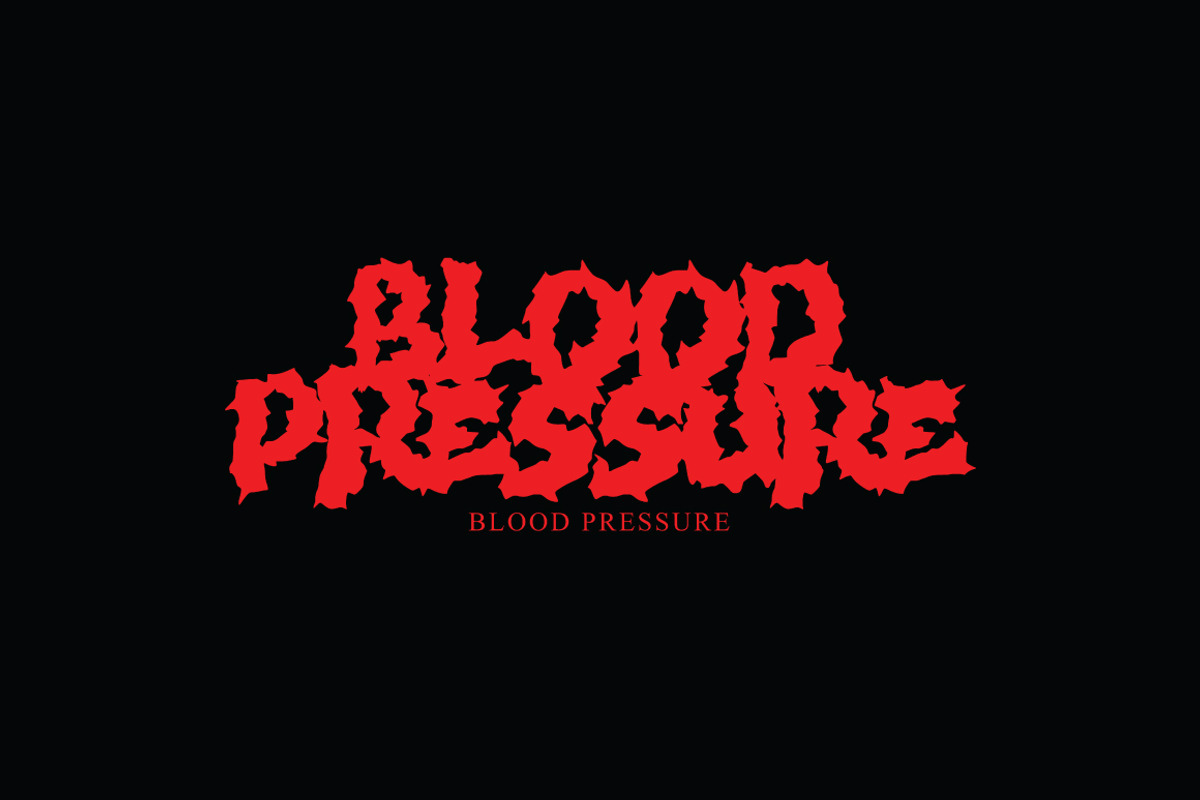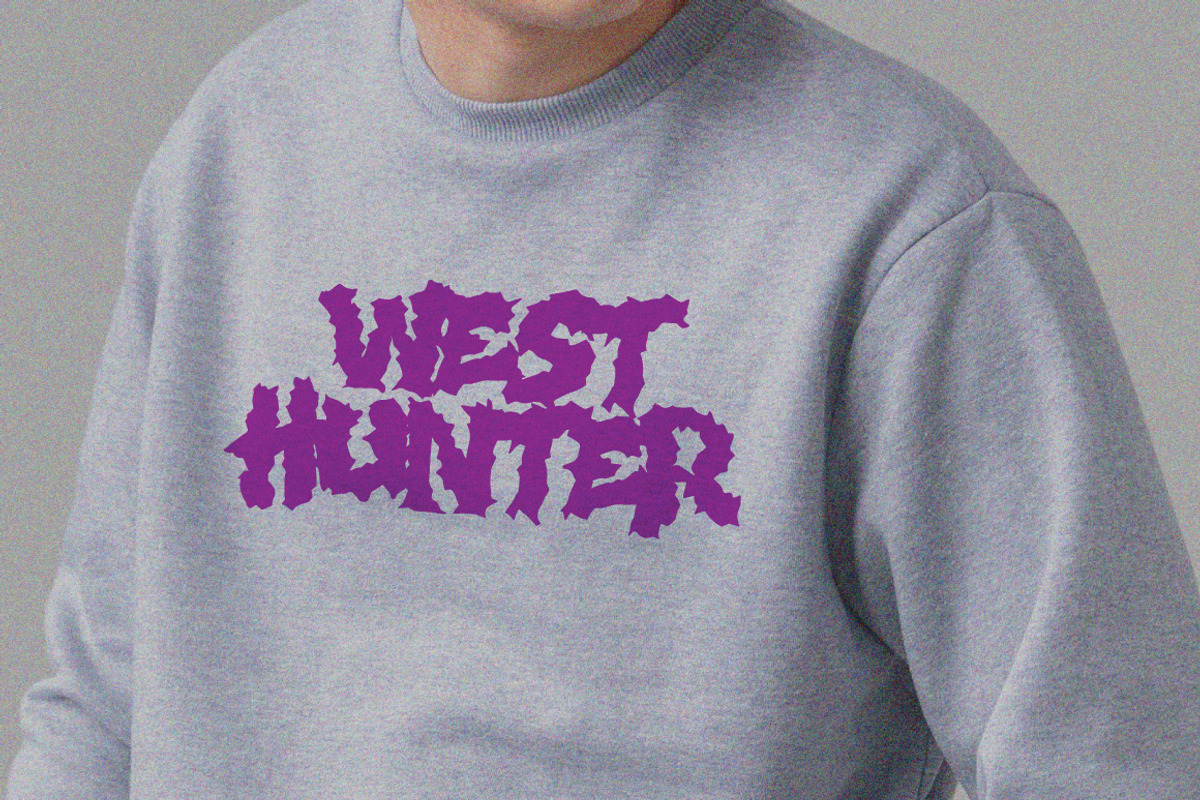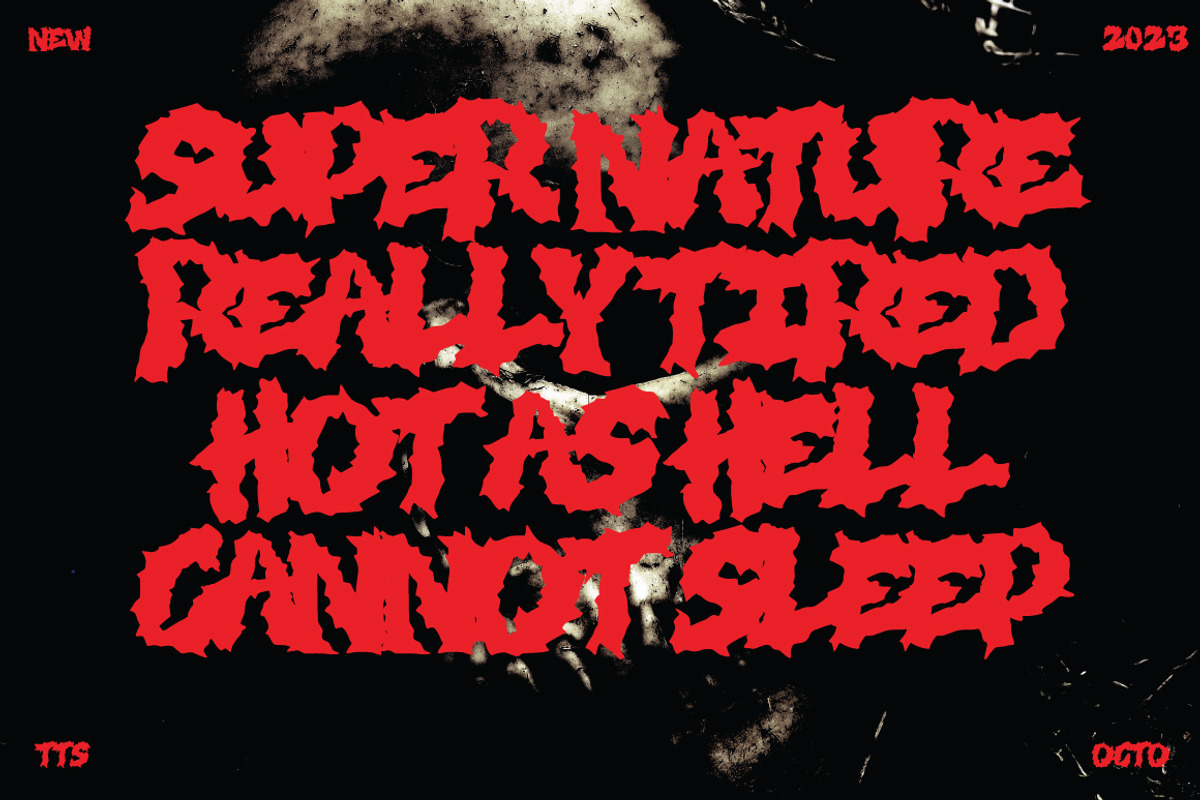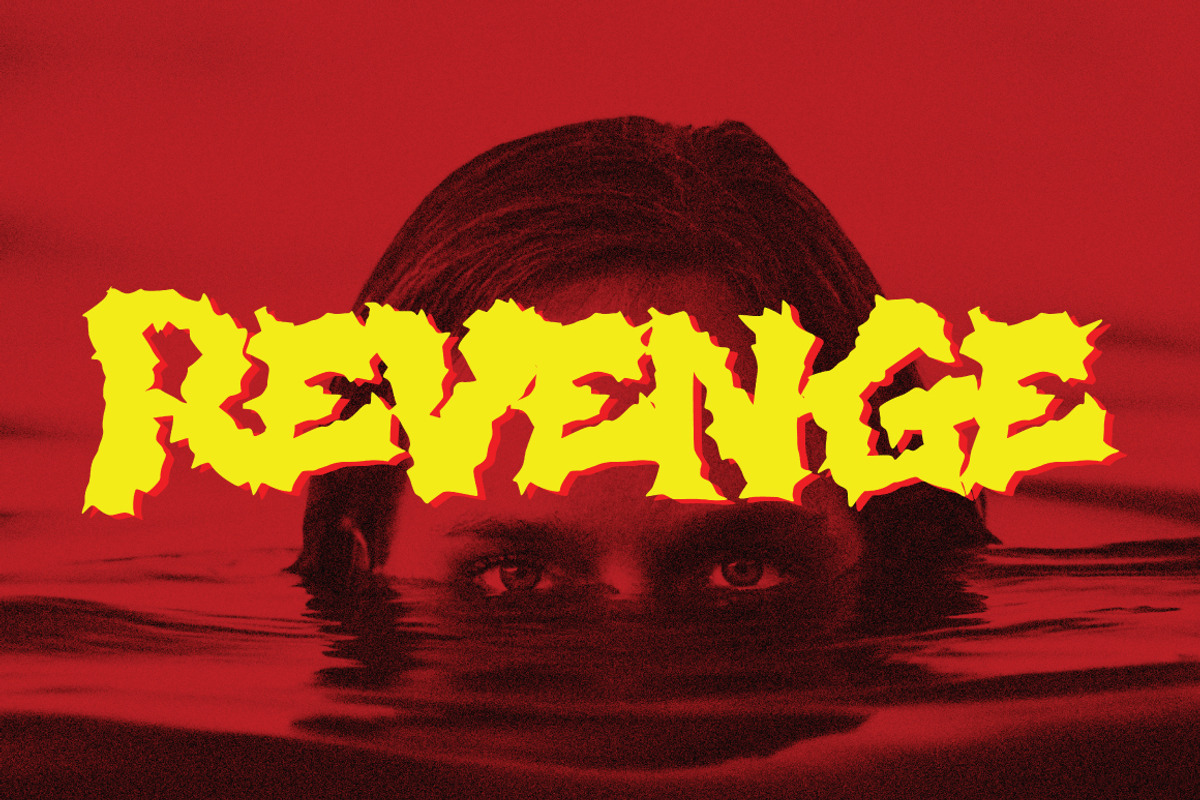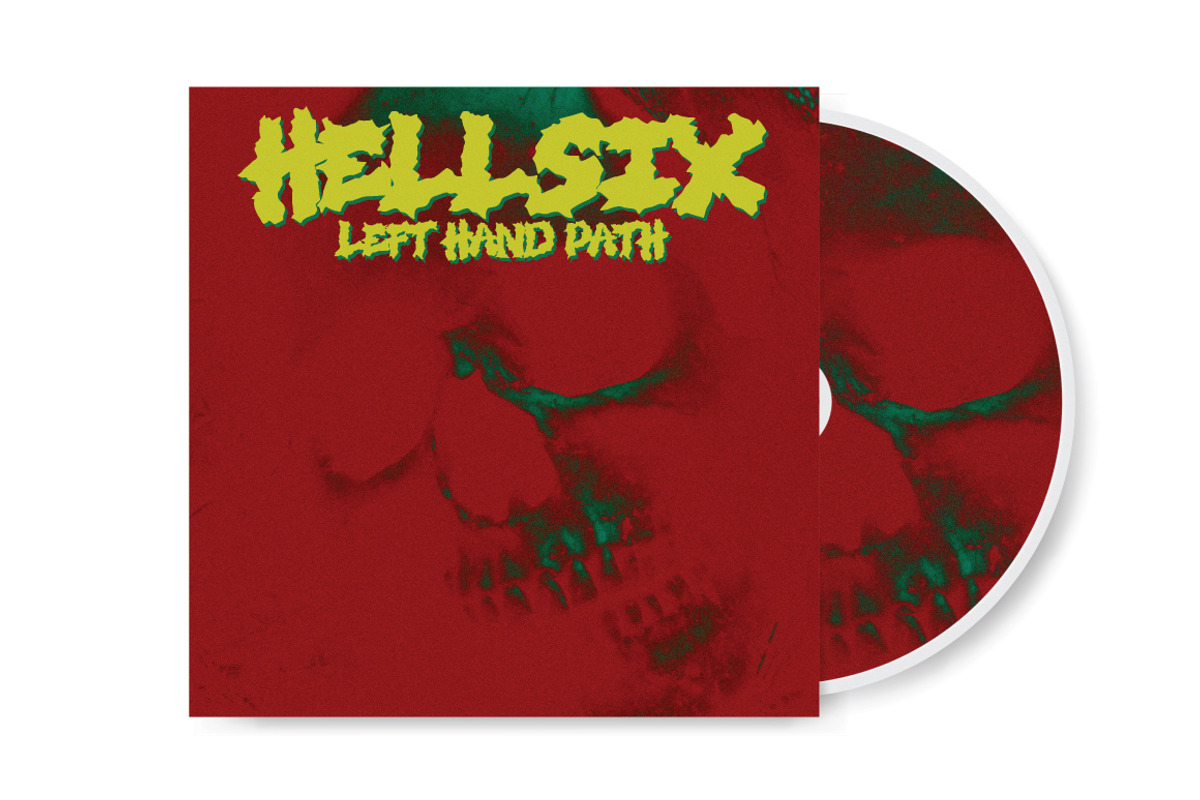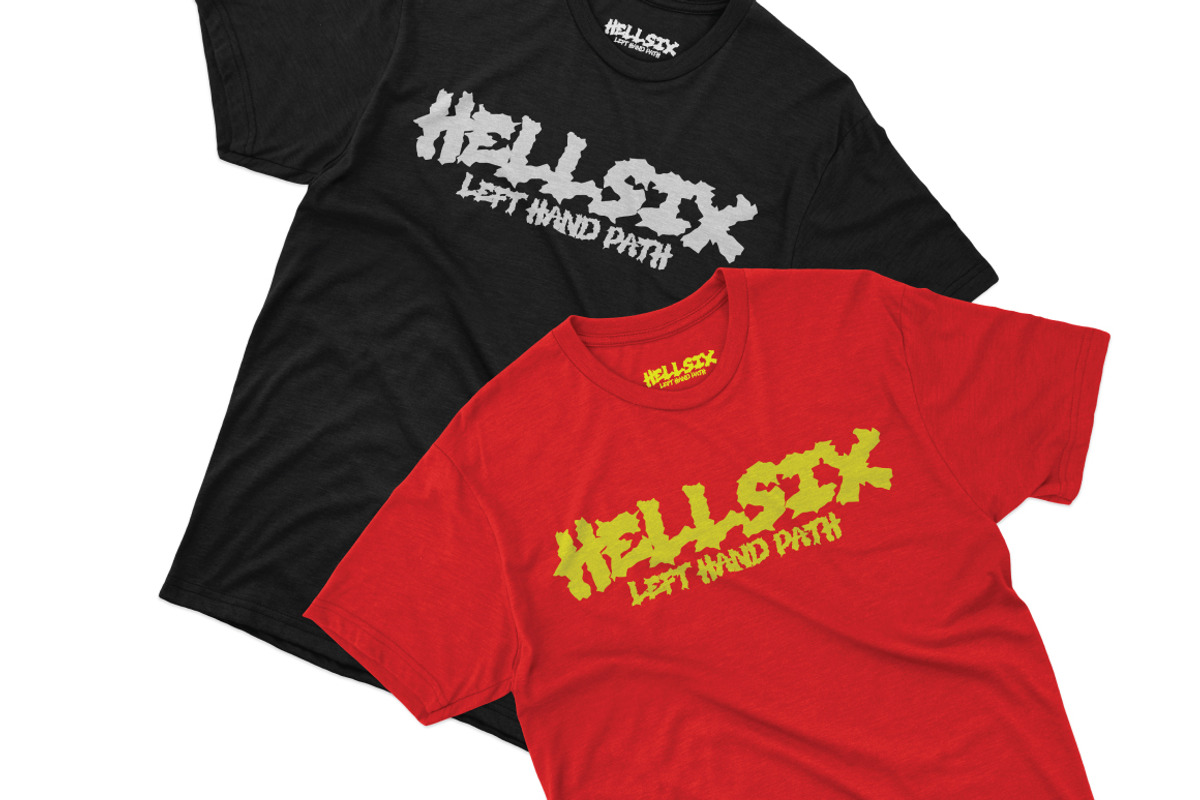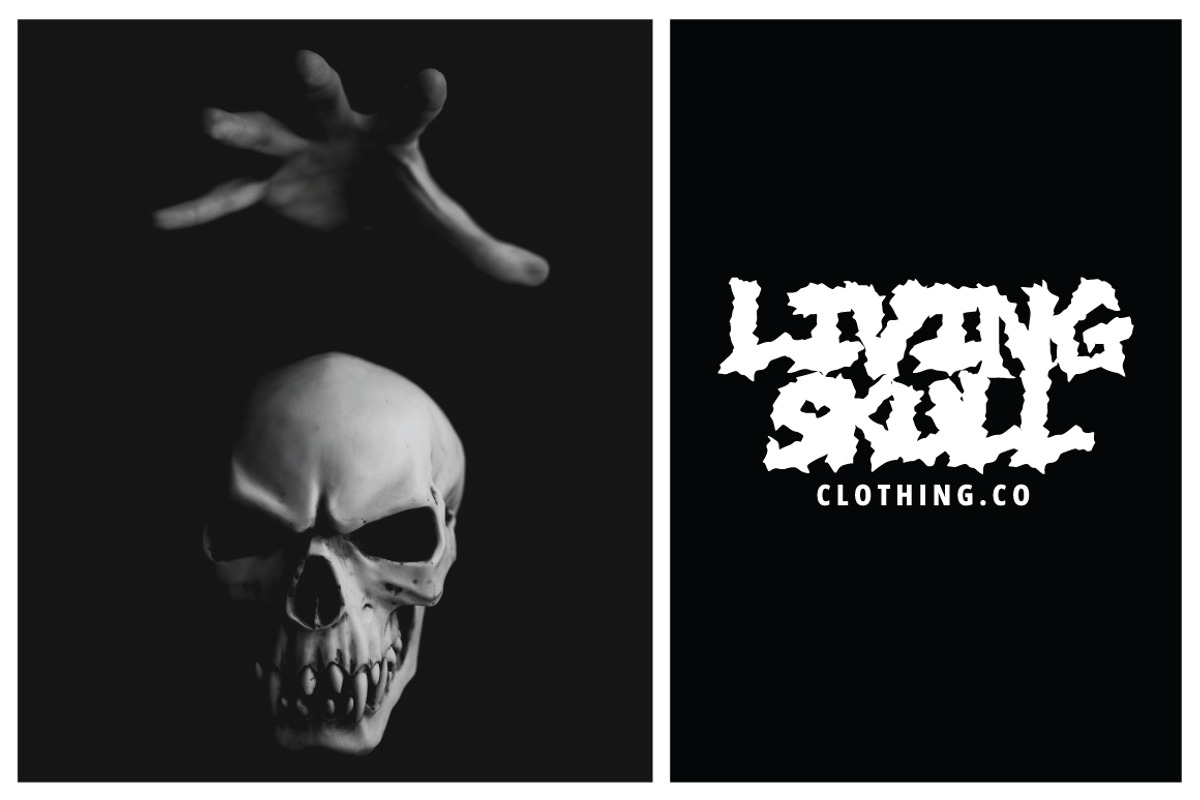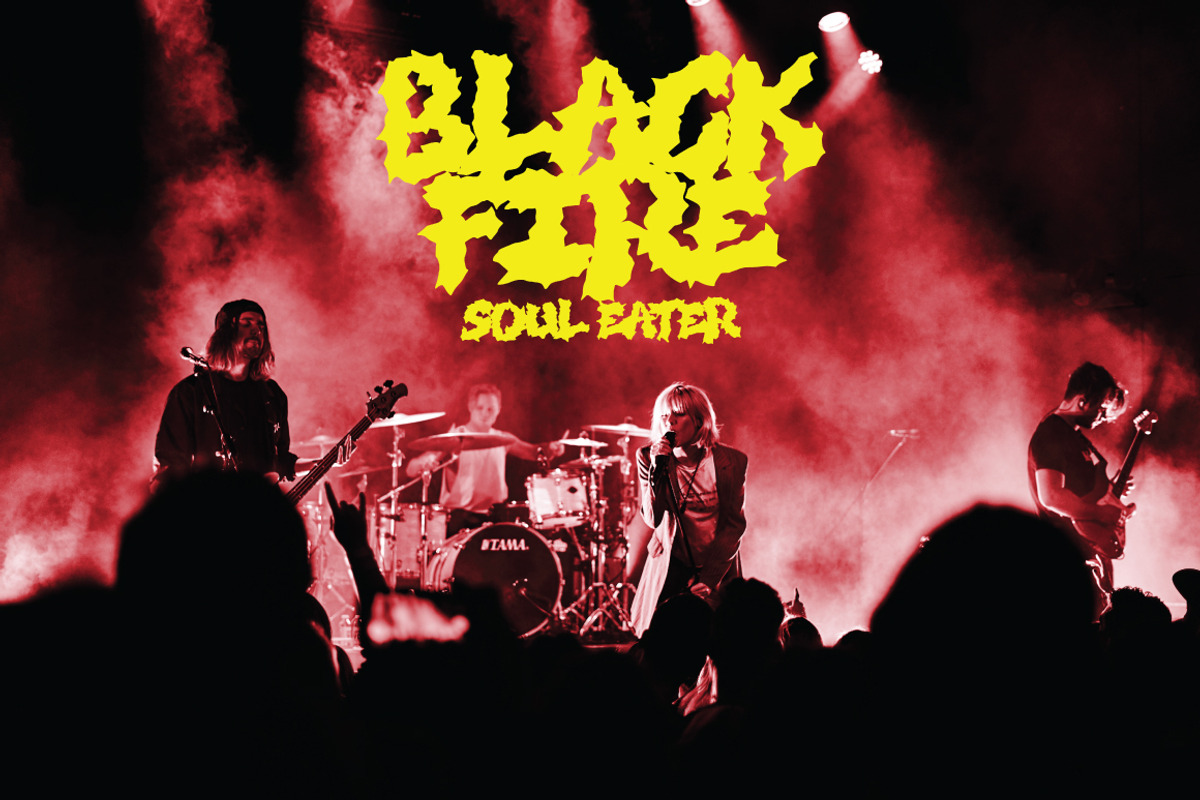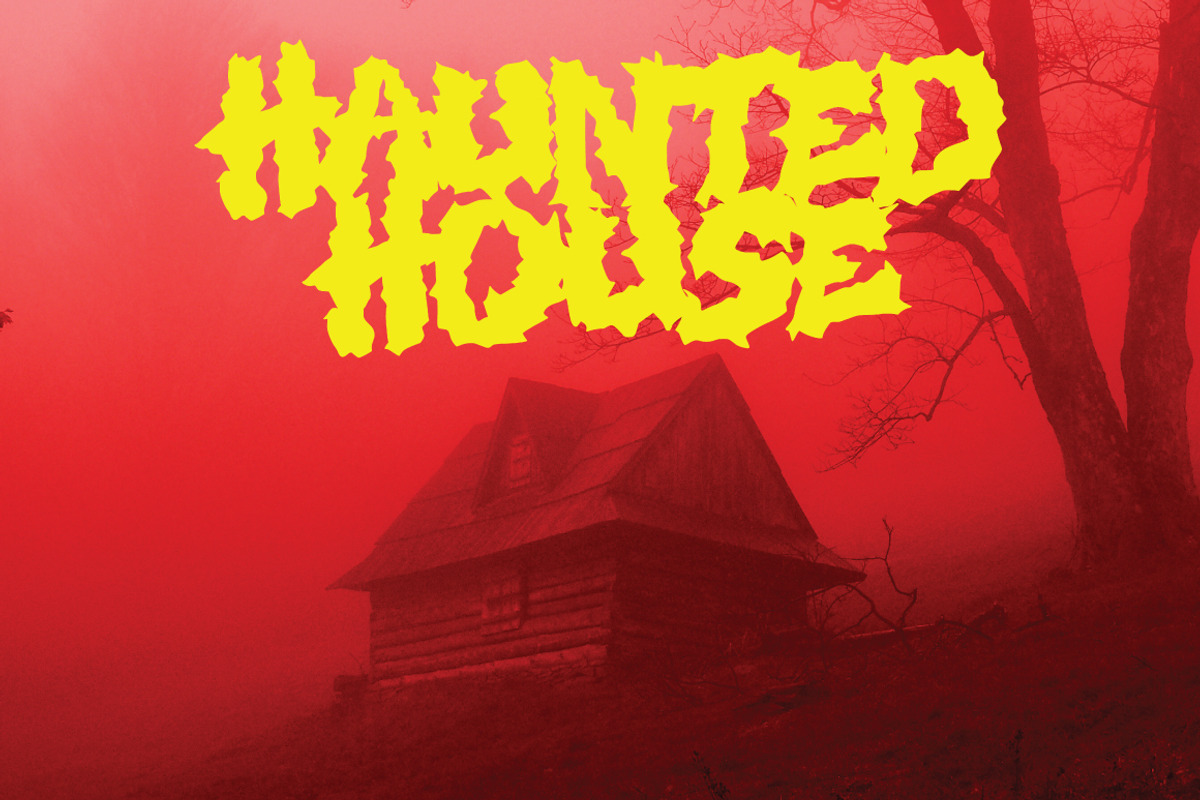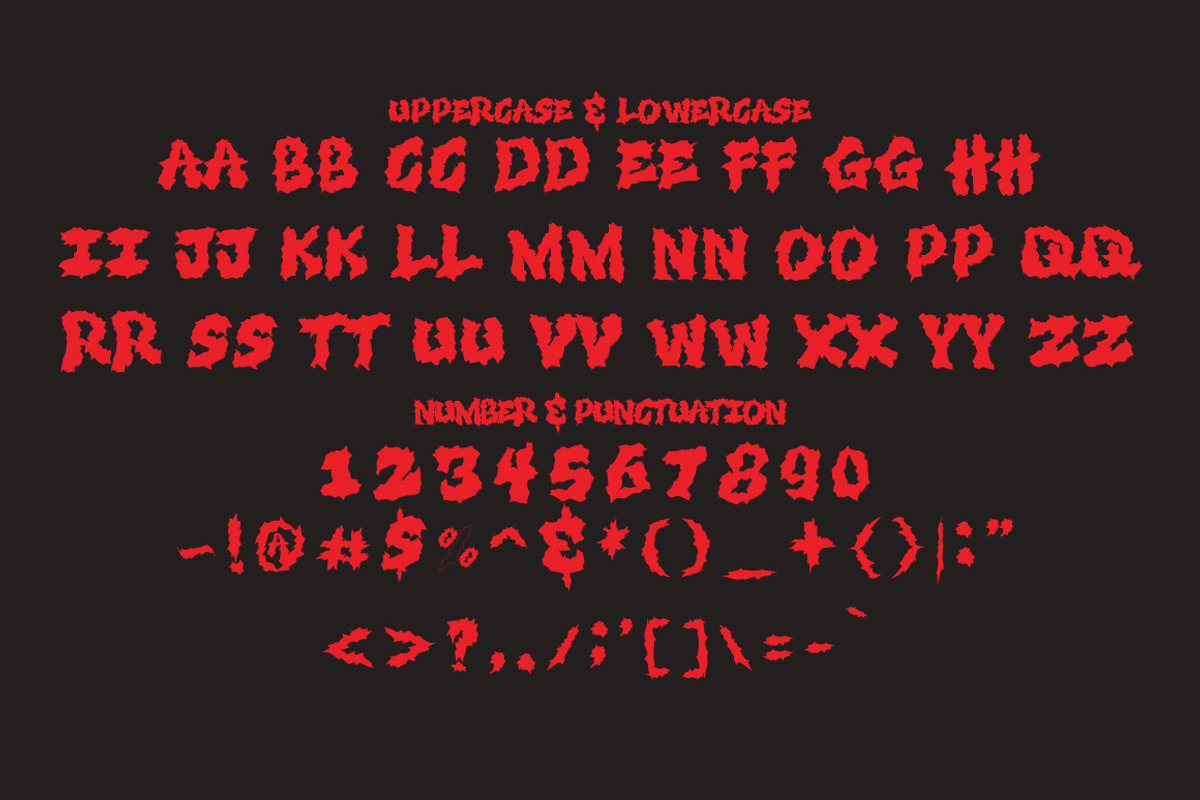
Dezter - Black Metal Font
Dezter Font is a cool alternative for you to easily create a logo for your Underground band or whatever. Using alternate front and ending letters brings the font to life, It comes with a basic character set and a small group of symbols and signs often used in the extreme music sector – the classics of Death- and Blackmetal like pentagram drops, roots, spikes and more.
- All Caps
- numbers & punctuation
- Symbol Ornament